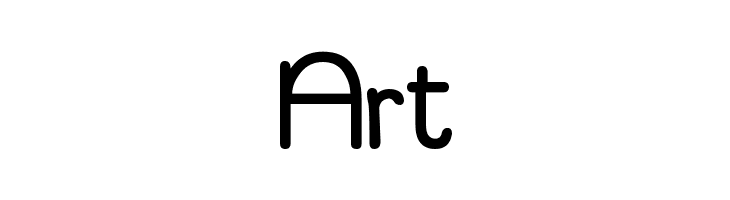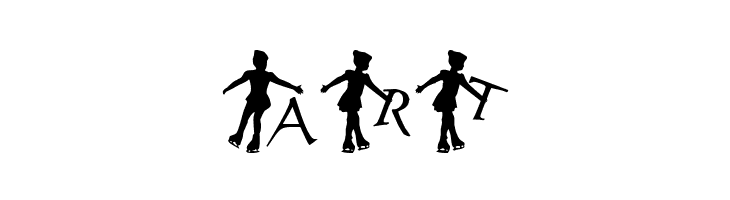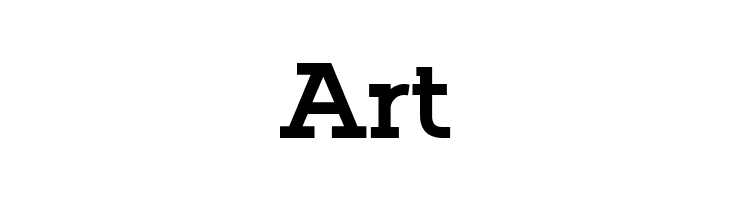
A playful, rounded font with smooth curves and consistent stroke width.
A bold, modern-vintage font with flowing curves and sharp edges.
A decorative font featuring dancer silhouettes integrated with each letter.
A bold, brush-style font with an energetic and handcrafted appearance.
A condensed, italic serif font with elegant, elongated strokes.
A bold slab serif font with strong, block-like serifs and a commanding presence.
A classic slab serif font with a condensed and modern design.
A classic, italicized font with moderate contrast and elegant styling.
A modern slab serif font with bold serifs and clean lines.